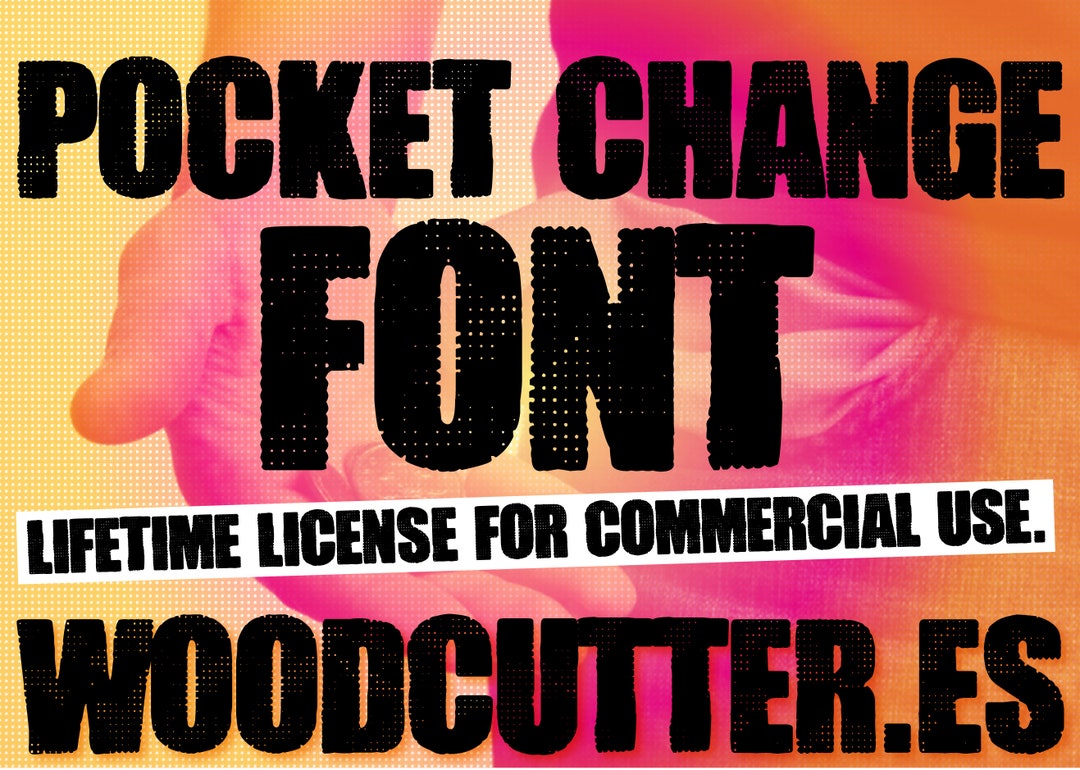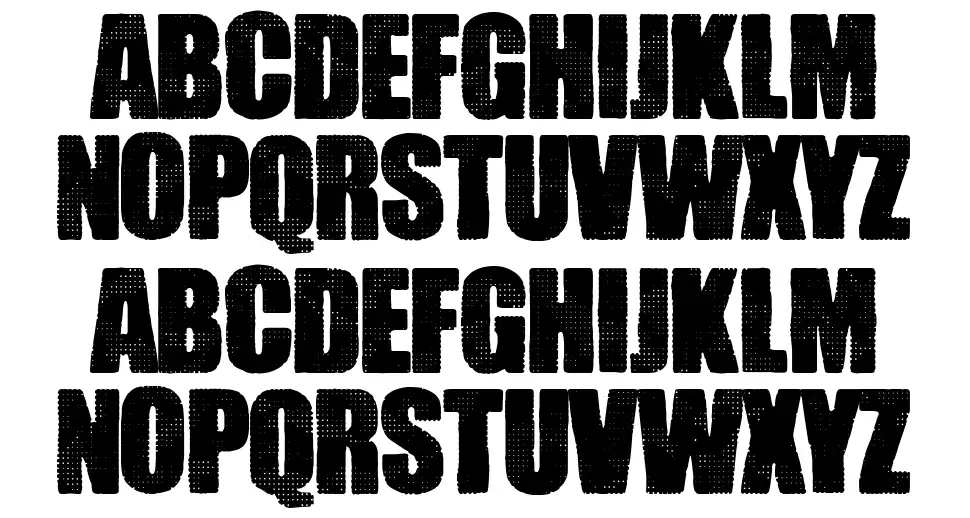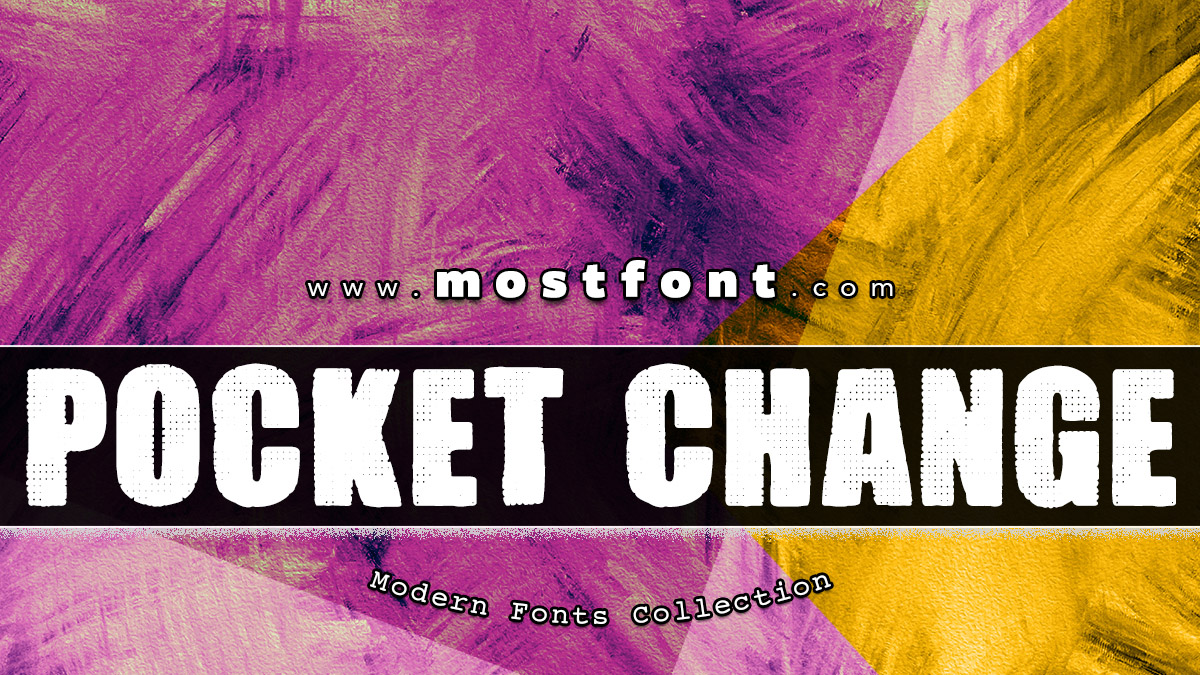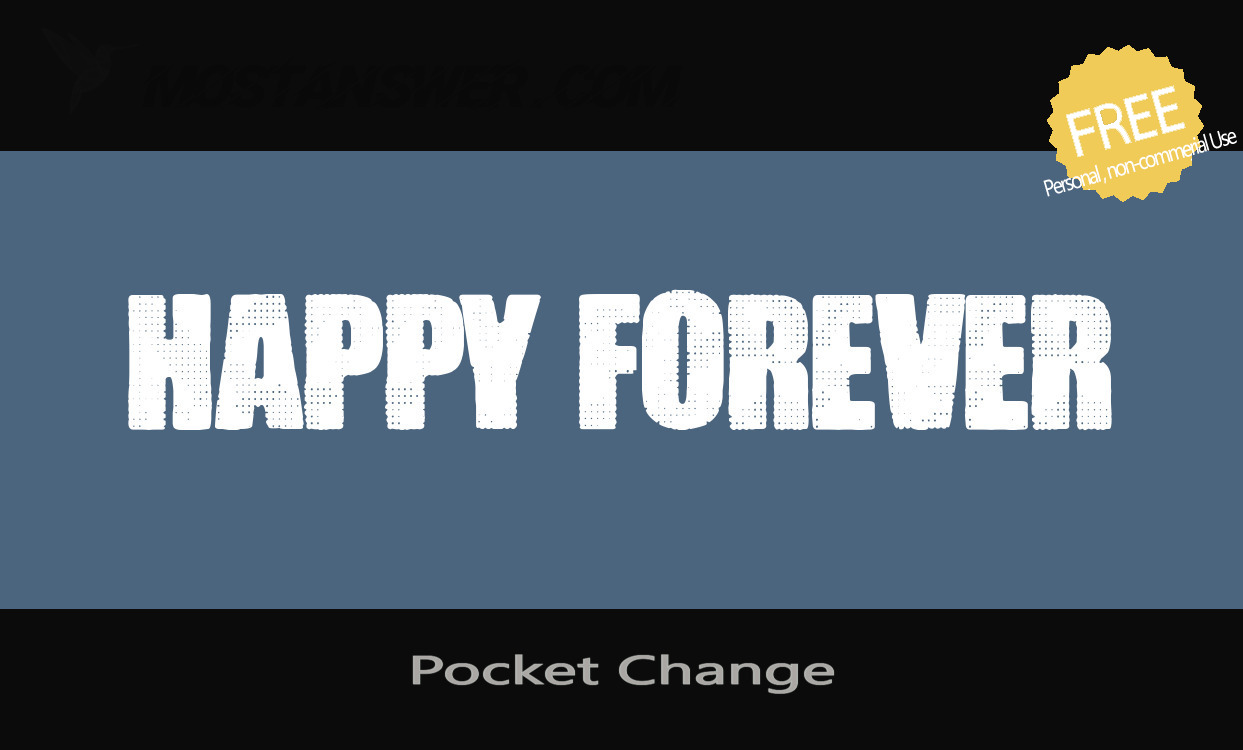
Pocket Change Font . The pocket change font was designed by woodcutter. Available in both ttf and otf. the pocket change font contains over 20 beautifully designed characters. ️ customize your own preview. download pocket change font. 24,605 downloads free for personal use. Pocket change is a fancy type font that can be used on any device. pocket change is the perfect font for all your fun designs. pocket change € by woodcutter. pocket change font download is available free from fontget. get your very own free download of the pocket change font, designed and created by woodcutter.
Pocket Change Font The pocket change font was designed by woodcutter. the pocket change font contains over 20 beautifully designed characters. Available in both ttf and otf. The pocket change font was designed by woodcutter. ️ customize your own preview. pocket change font download is available free from fontget. pocket change € by woodcutter. get your very own free download of the pocket change font, designed and created by woodcutter. Pocket change is a fancy type font that can be used on any device. 24,605 downloads free for personal use. pocket change is the perfect font for all your fun designs. download pocket change font.
Pocket Change Front Page, February 2012, Conveys Fun. Big Buttons. Very Pocket Change Font Pocket change is a fancy type font that can be used on any device. get your very own free download of the pocket change font, designed and created by woodcutter. Available in both ttf and otf. pocket change € by woodcutter. the pocket change font contains over 20 beautifully designed characters. pocket change font download is. Pocket Change Font.
Pocket Change Font pocket change font download is available free from fontget. pocket change is the perfect font for all your fun designs. 24,605 downloads free for personal use. The pocket change font was designed by woodcutter. ️ customize your own preview. Pocket change is a fancy type font that can be used on any device. get your very own. Pocket Change Font.
Pocket Change Font Download Pocket Change Font get your very own free download of the pocket change font, designed and created by woodcutter. Pocket change is a fancy type font that can be used on any device. the pocket change font contains over 20 beautifully designed characters. download pocket change font. Available in both ttf and otf. pocket change is the perfect font. Pocket Change Font.
Change Font in Notion Everything You Need to Know (Guide) Tools2Study Pocket Change Font the pocket change font contains over 20 beautifully designed characters. ️ customize your own preview. Pocket change is a fancy type font that can be used on any device. Available in both ttf and otf. pocket change font download is available free from fontget. download pocket change font. pocket change is the perfect font for all. Pocket Change Font.